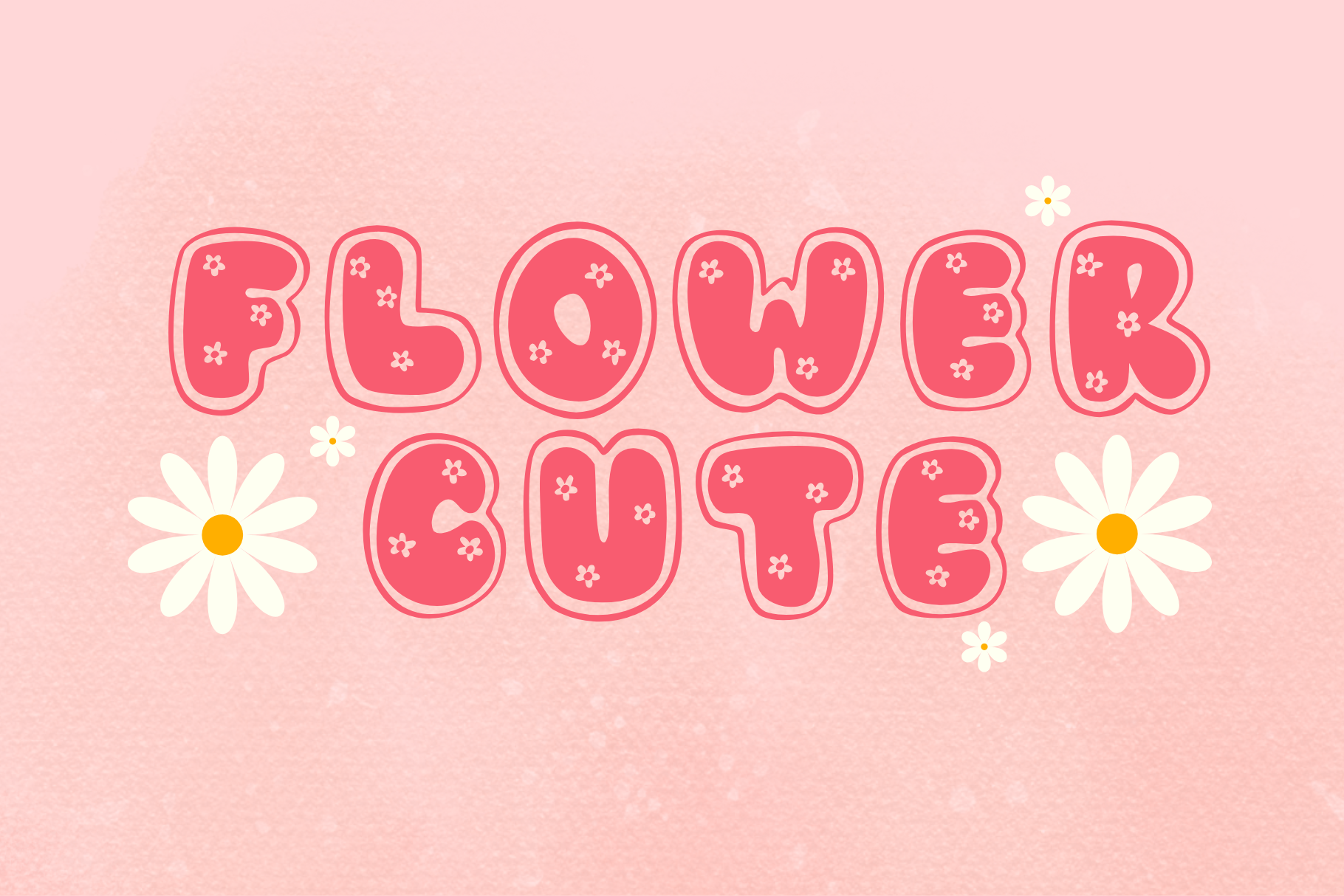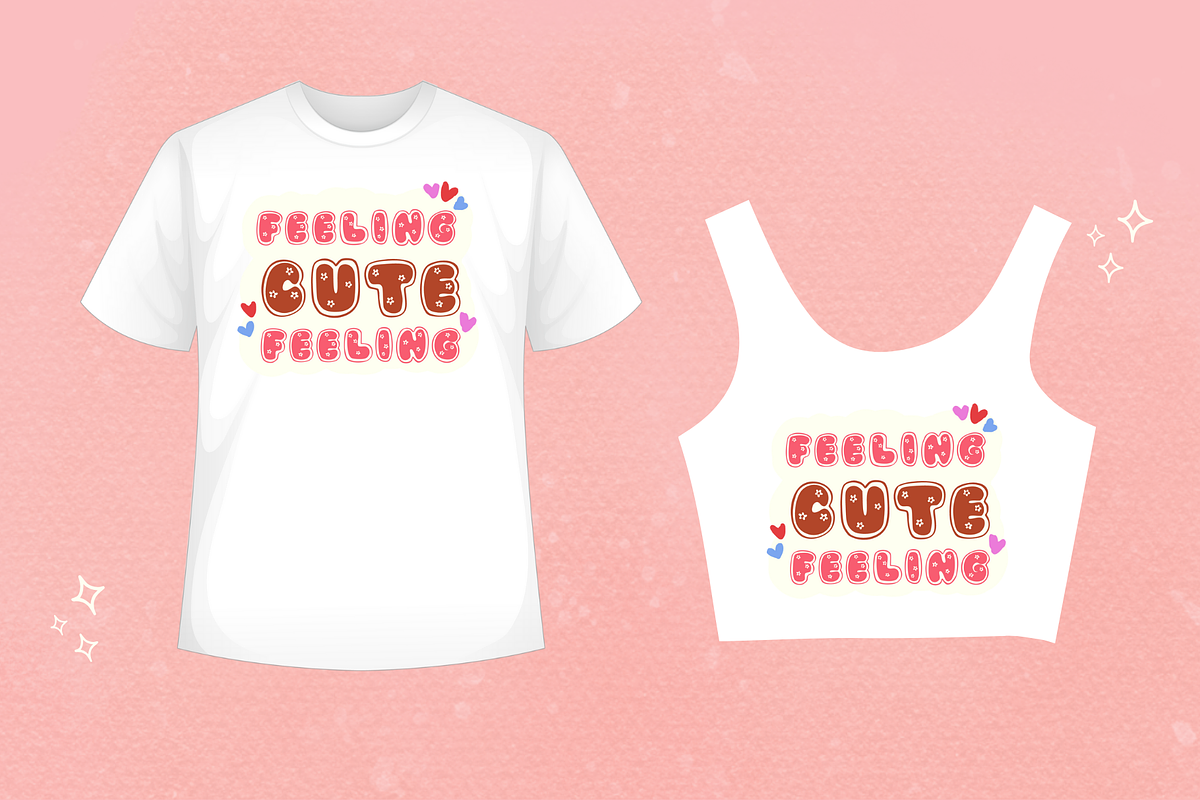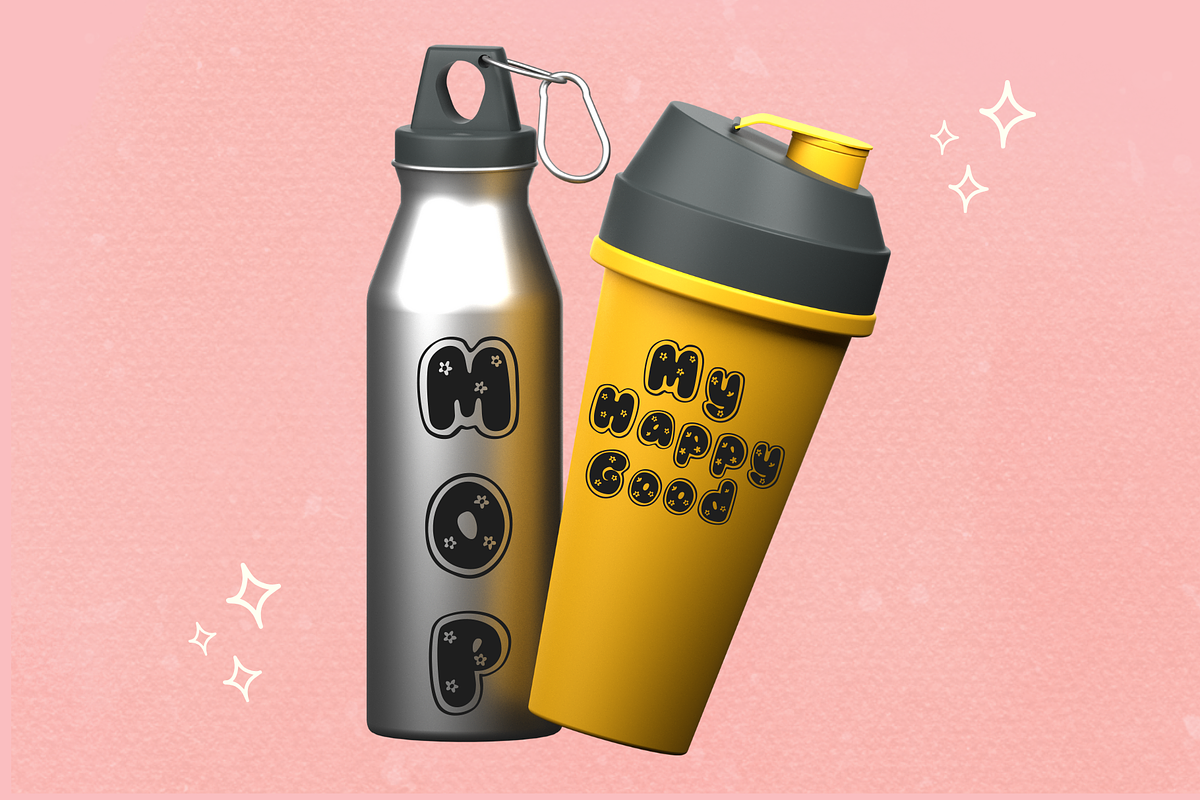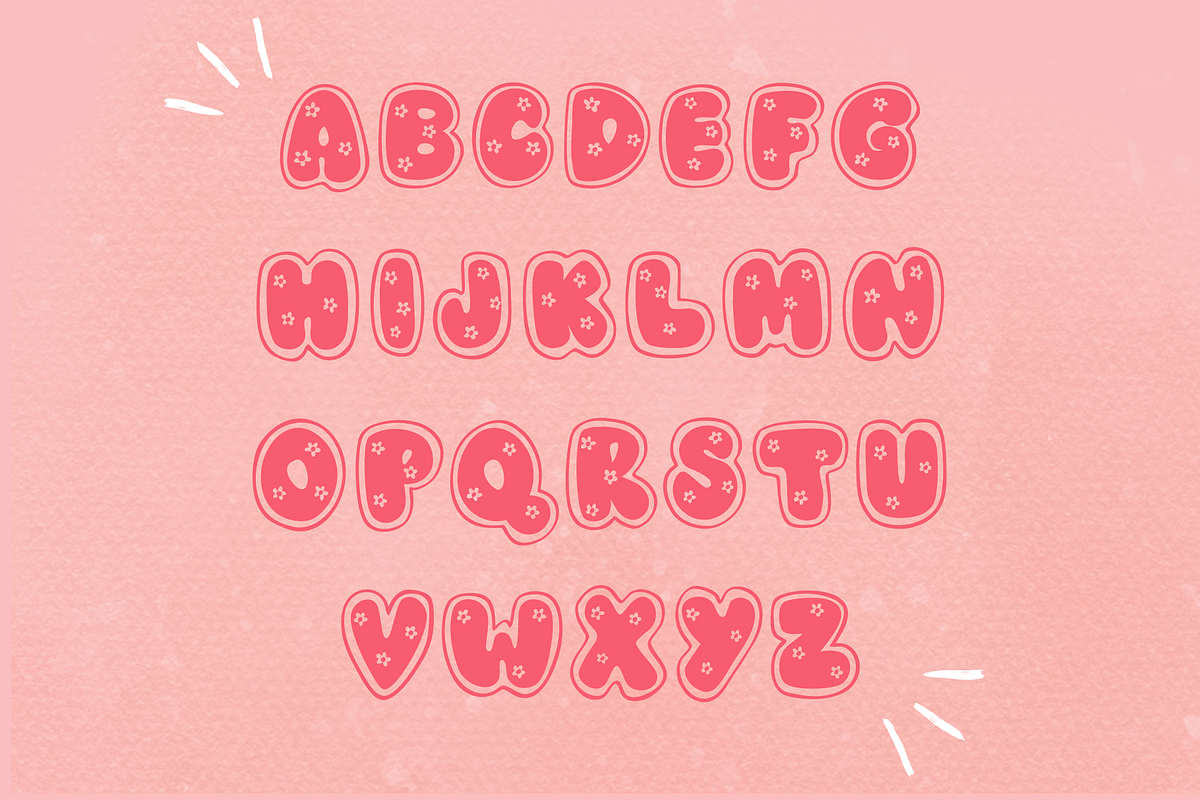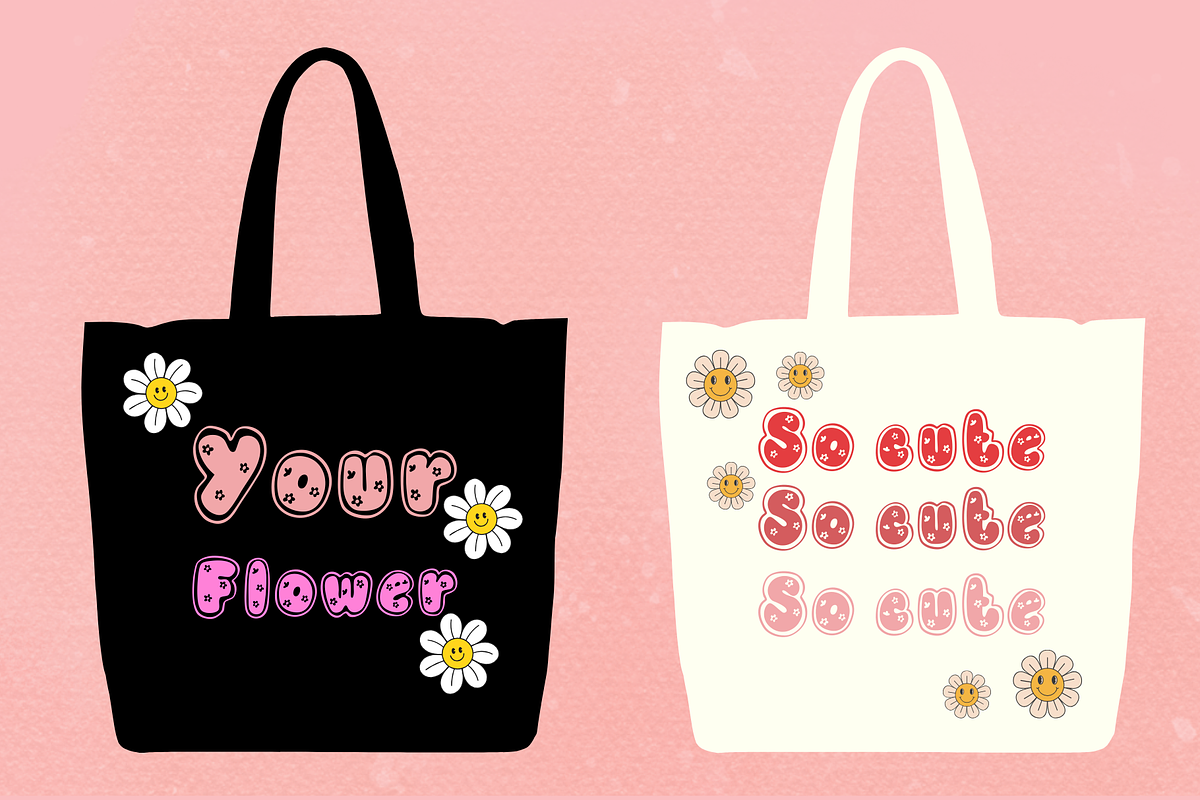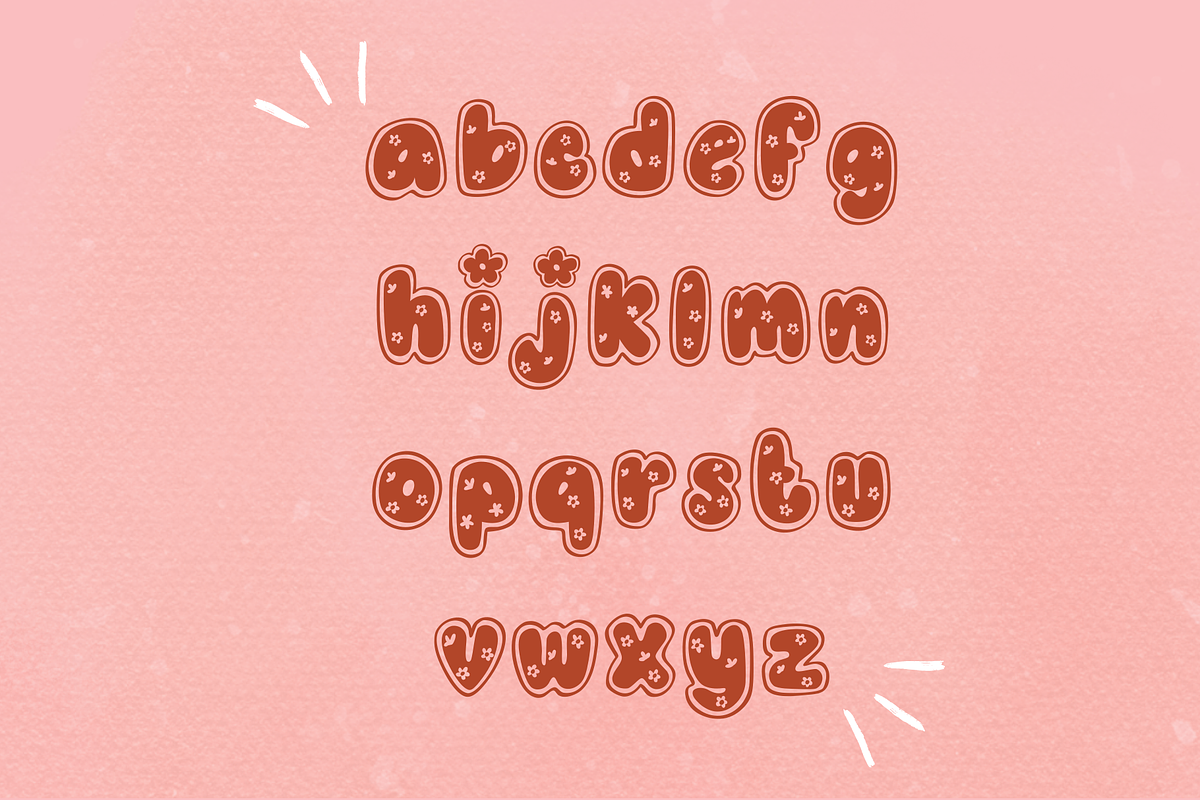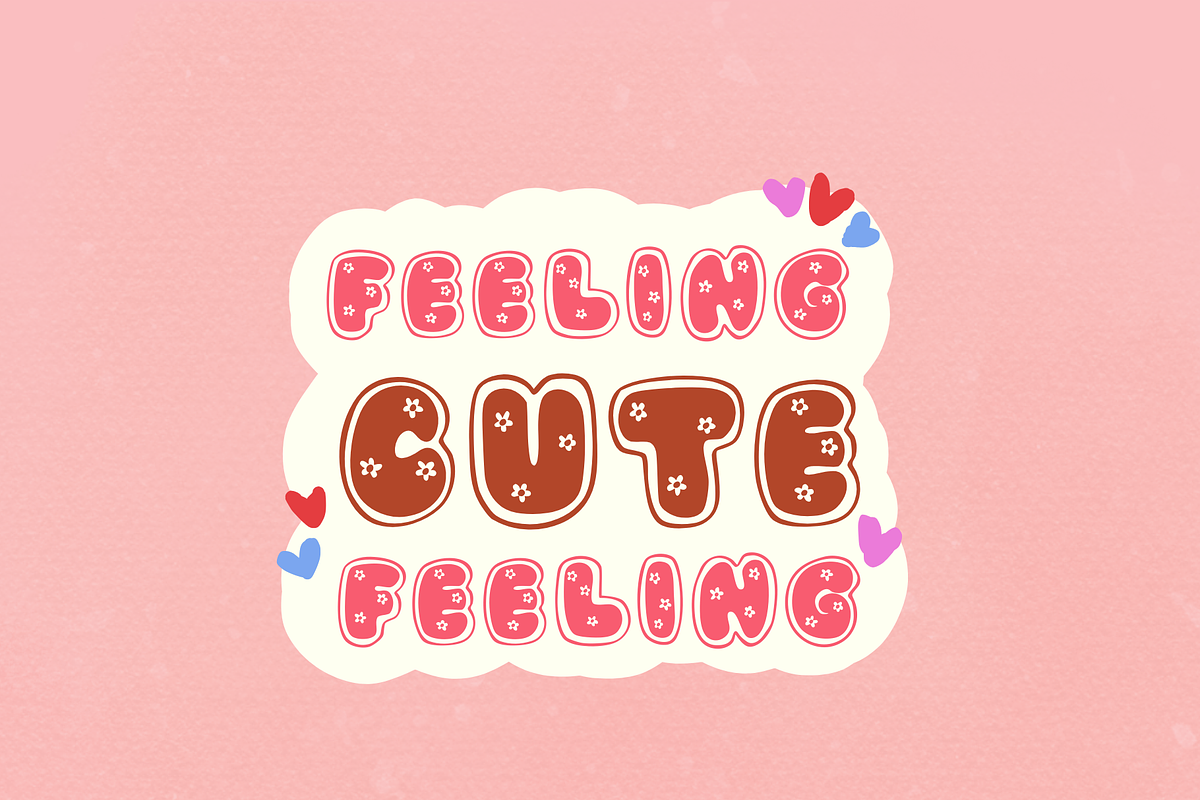
Flower cute font
A cute decorative font that comes with a flower theme, evoking a special and intriguing feeling. The tiny details in the letters add a sense of fun to your design work. It will make your work look more stylish and exciting. You can use it for a wide range of product designs, whether it's clothing, greeting cards, and more. Enjoy the design process!